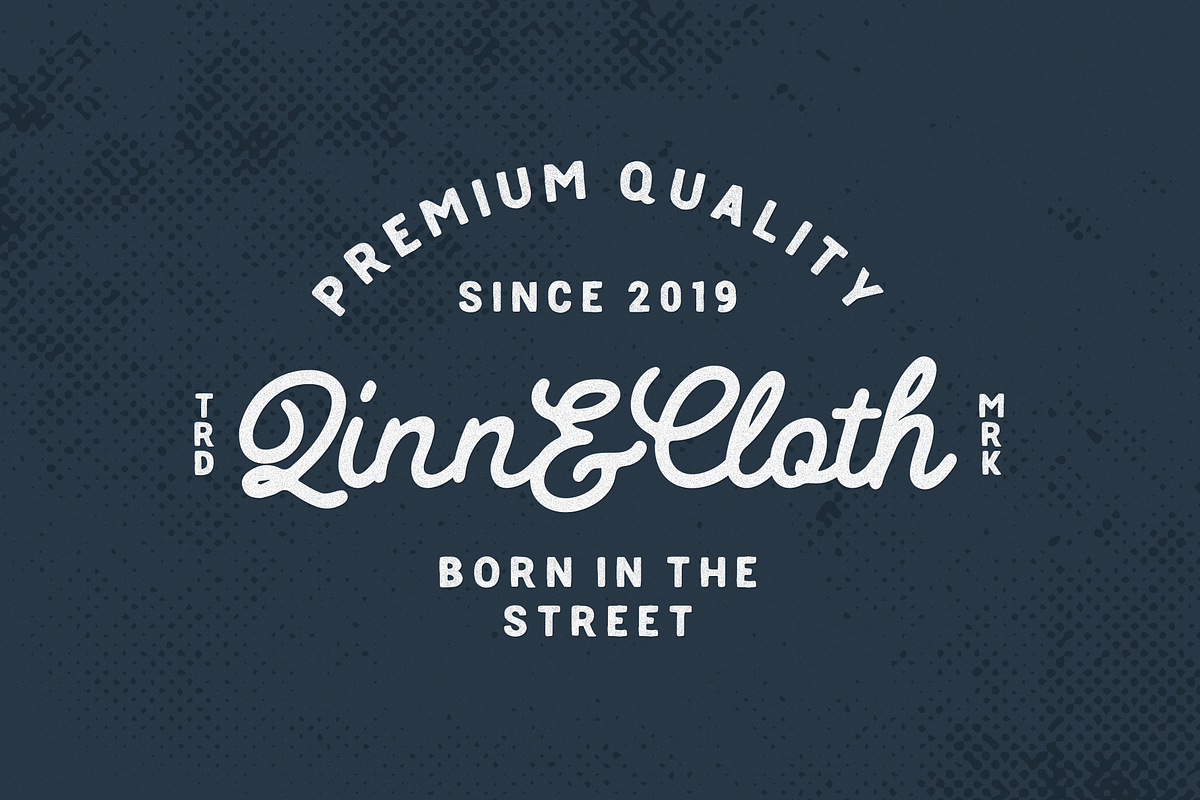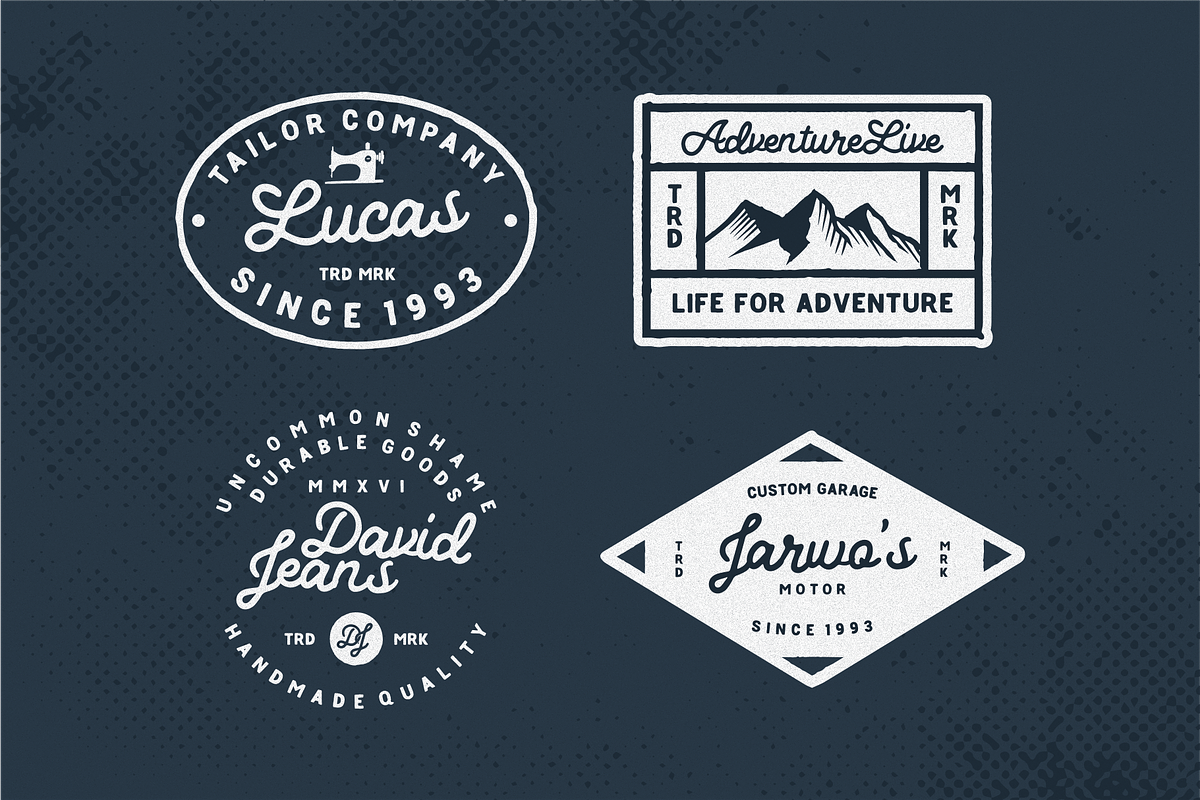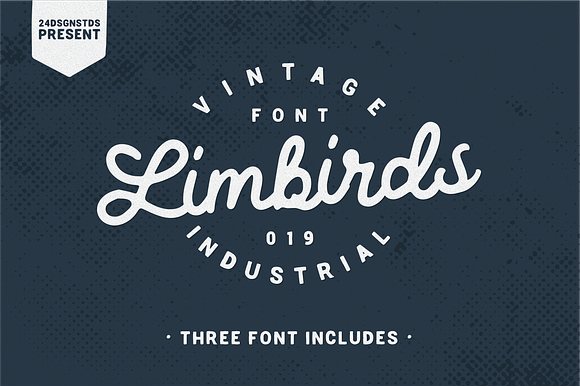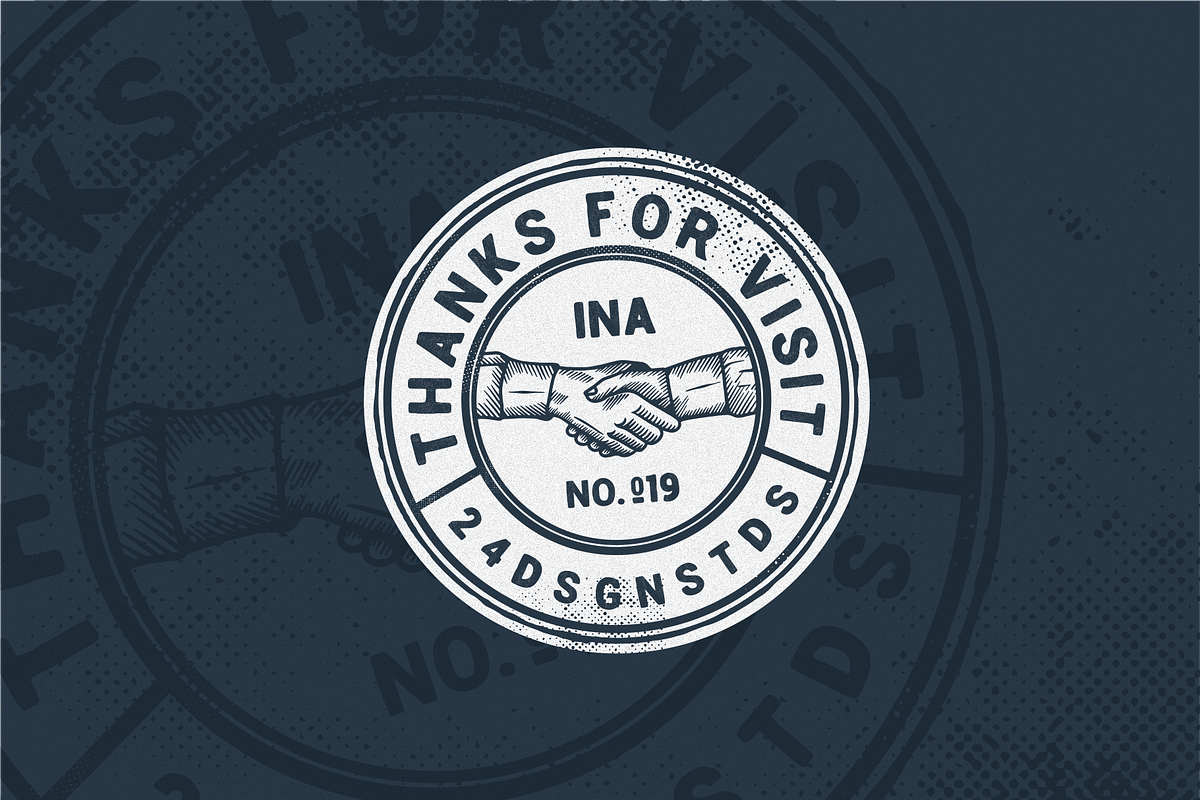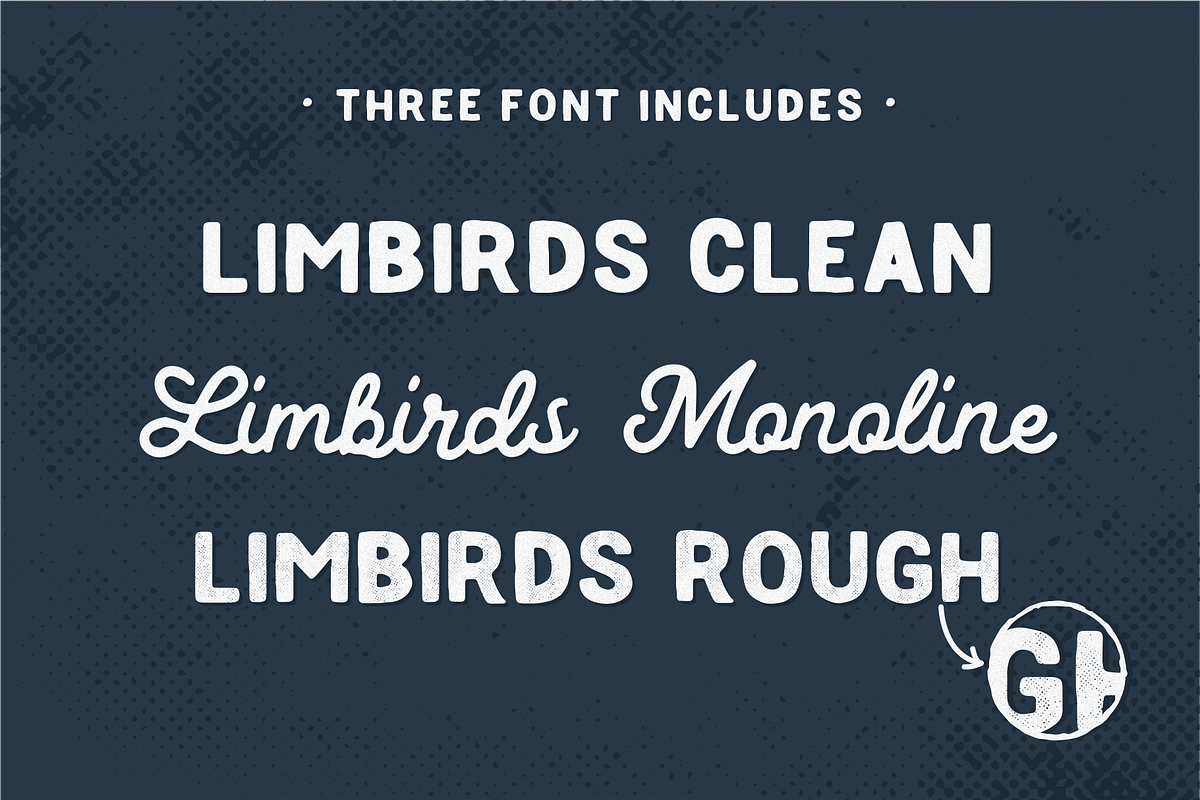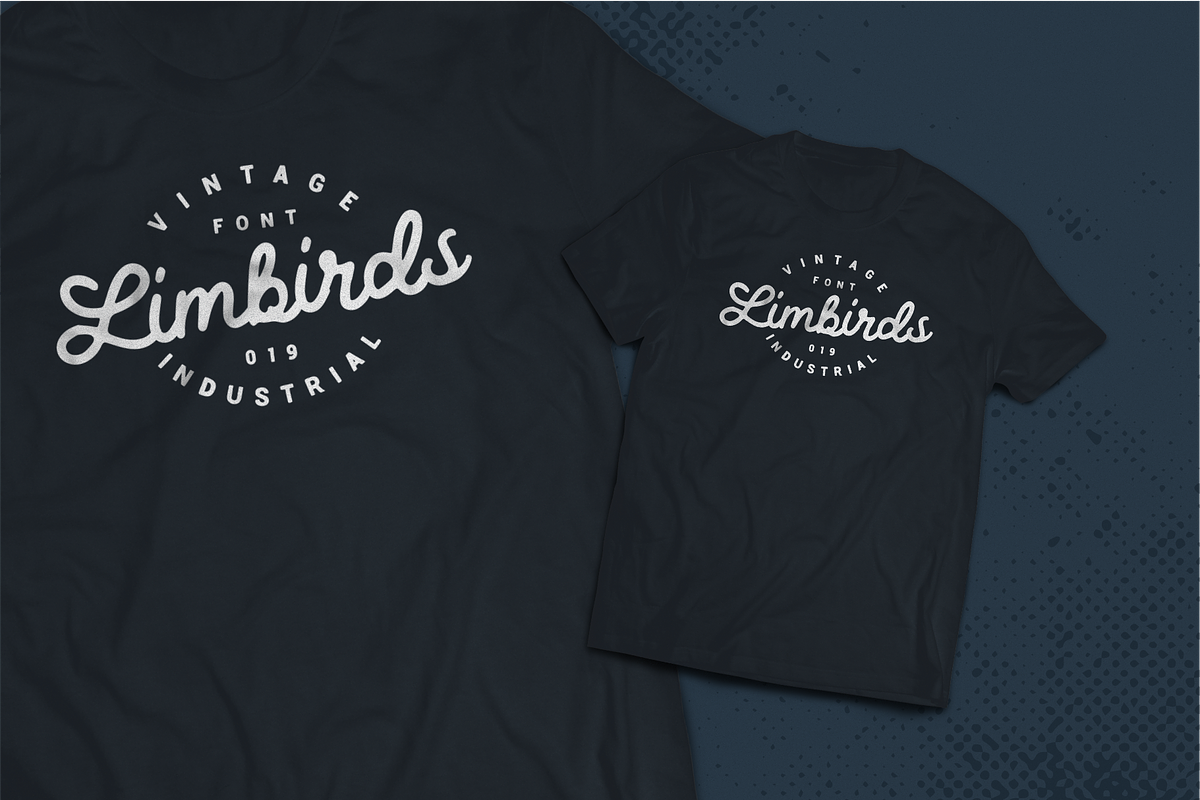
Limbirds Vintage Font
Limbirds is a striking display font. It's masculine style makes it perfect for logos, typography, and product labels that require a classic and masculine touch. This Font includes three styles...
Limbirds Vintage Font by 24Design Studios fits naturally into Branding, posters, packaging, typography.